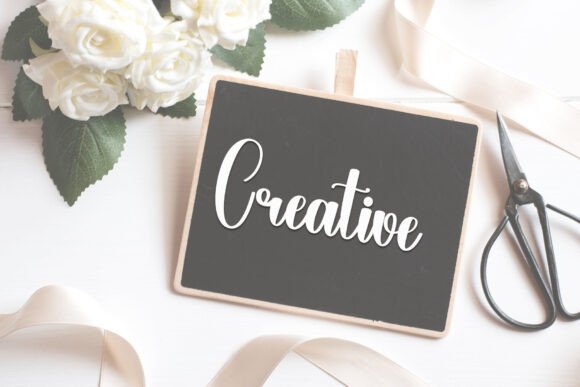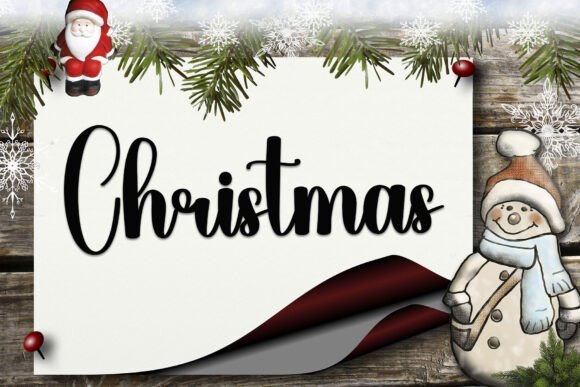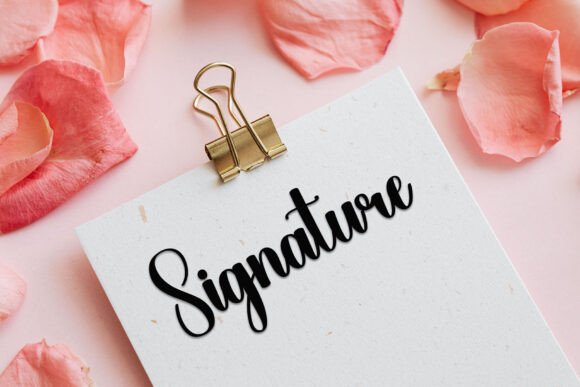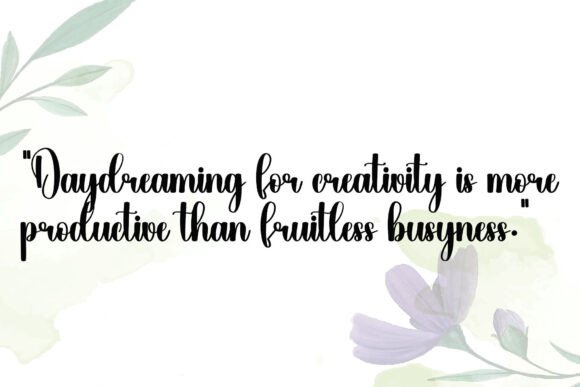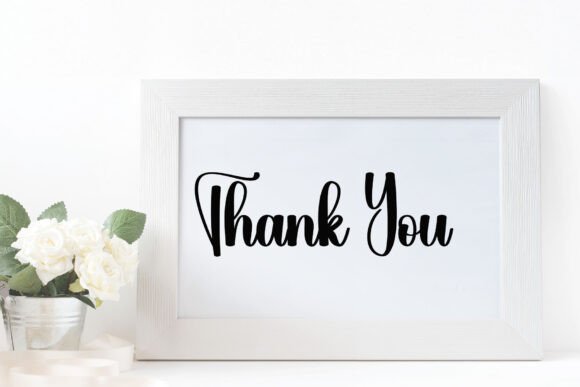
The Dreaming Font: A Bold and Playful Companion for Your Designs
Have you ever been in the middle of a design project, and suddenly, it feels like something’s missing? You’re not quite sure what it is, but you know it’s not quite right. For me, that moment came when I was working on a fun craft project for a client who wanted a playful and creative vibe. I scoured font libraries, but nothing seemed to capture the essence of what I was looking for – until I stumbled upon the Dreaming font.
A Personal Review: What I Love About Dreaming Font
The Dreaming font is a bold, handwritten font that exudes a lively and artistic feel. Here are the things that I absolutely love about it:
- ✨ Unique and Creative: The Dreaming font has a one-of-a-kind personality that adds a touch of whimsy to any design.
- ✅ Easily Readable: Despite its bold and playful nature, the font remains highly legible, making it perfect for a wide range of applications.
- 💫 Versatile: Whether you’re working on a logo, a poster, or a social media graphic, the Dreaming font adapts seamlessly to different contexts.
While the Dreaming font is an excellent choice for many projects, there are a few minor quirks to be aware of:
- 🤔 Limited Formality: Given its playful nature, the Dreaming font might not be the best fit for projects that require a high level of formality or professionalism.
- ⚠️ Overuse: As with any bold font, it’s easy to overuse the Dreaming font. Make sure to balance it with other design elements to avoid overwhelming your audience.
One of the exciting aspects of the Dreaming font is its support for OpenType features and glyphs. This allows for:
- Ligatures: Combine letters for a more artistic look.
- Stylistic Alternates: Switch between different letterforms for added variety.
- Glyphs: Access additional characters and symbols to enhance your design.
The Story Behind Dreaming Font
The Dreaming font was created with the intention of capturing the essence of creativity and playfulness. Its designer aimed to craft a font that would inspire artists, designers, and crafters to push the boundaries of their imagination. With its bold, flowing letters, the Dreaming font embodies the spirit of artistic expression.
| What makes the Dreaming font unique? | The Dreaming font stands out due to its bold, handwritten style and lively artistic feel. |
| Is the Dreaming font suitable for body text? | While it’s primarily designed for headlines and titles, the Dreaming font can be used for short paragraphs of body text. |
| Can I use the Dreaming font for digital media? | Absolutely! The Dreaming font is versatile and can be used in various digital contexts, from social media graphics to website headers. |